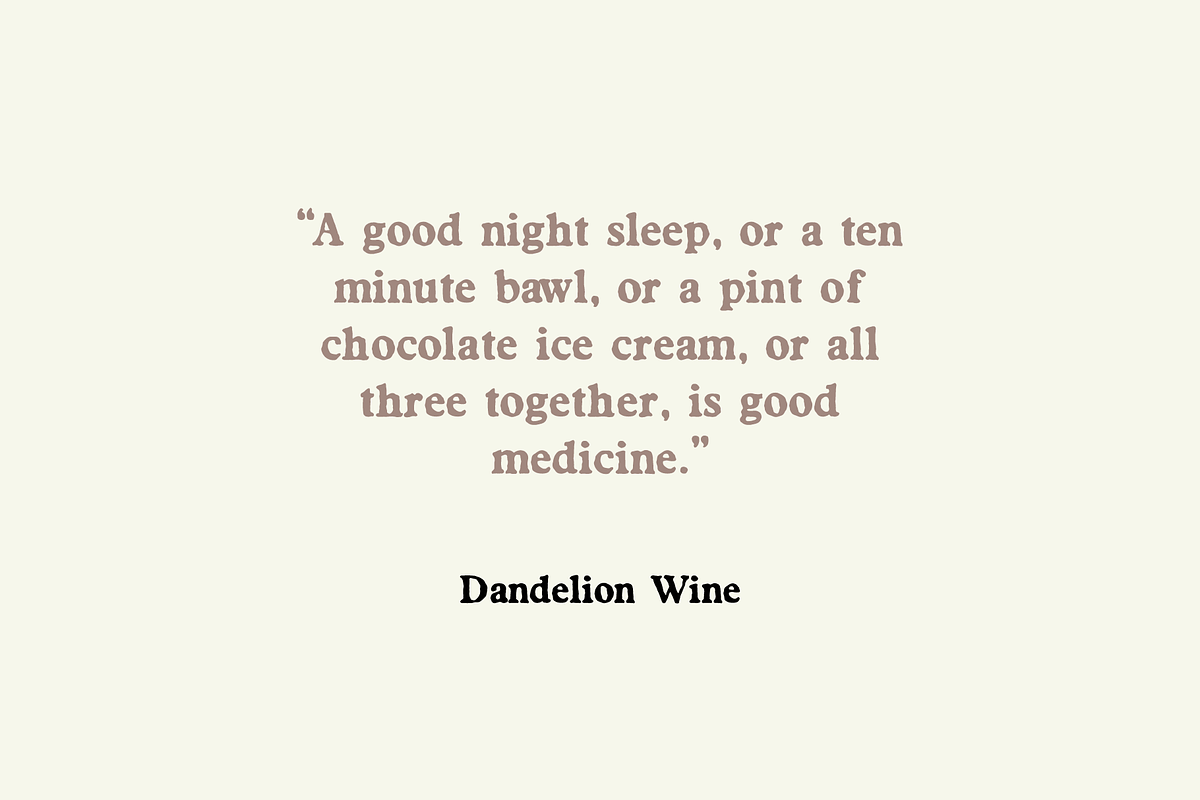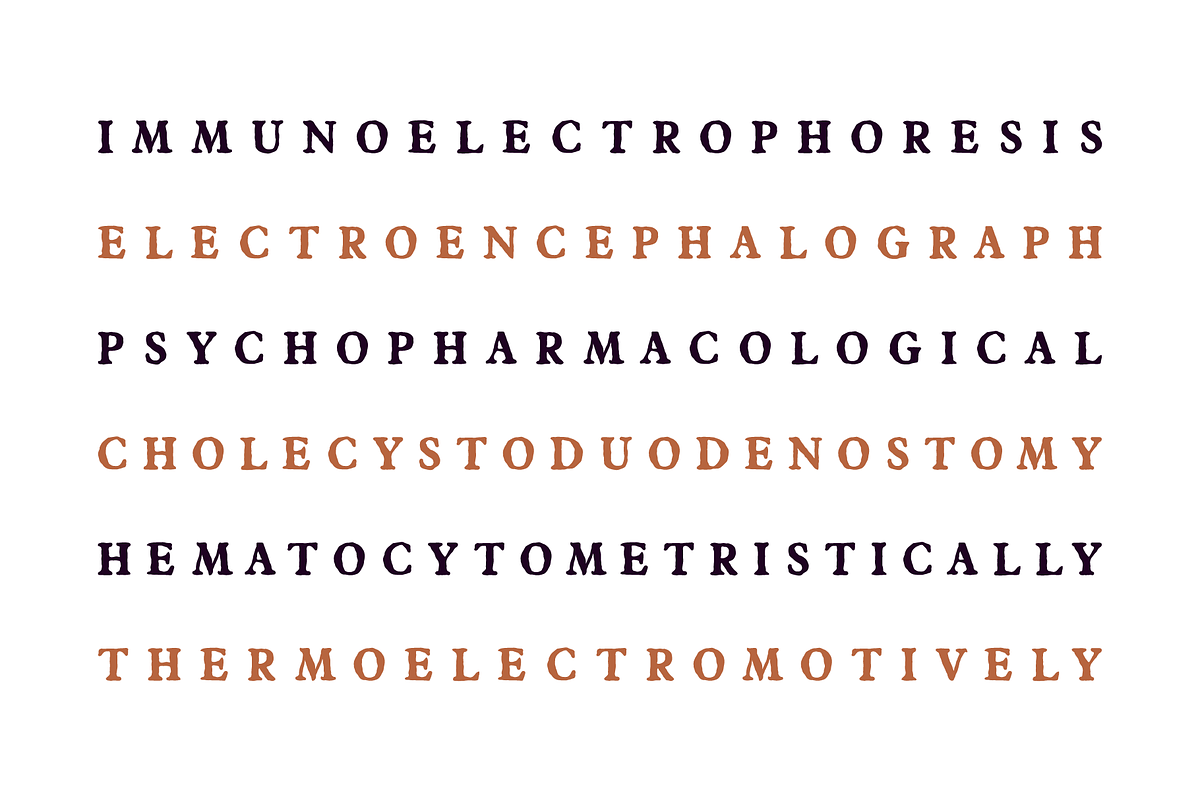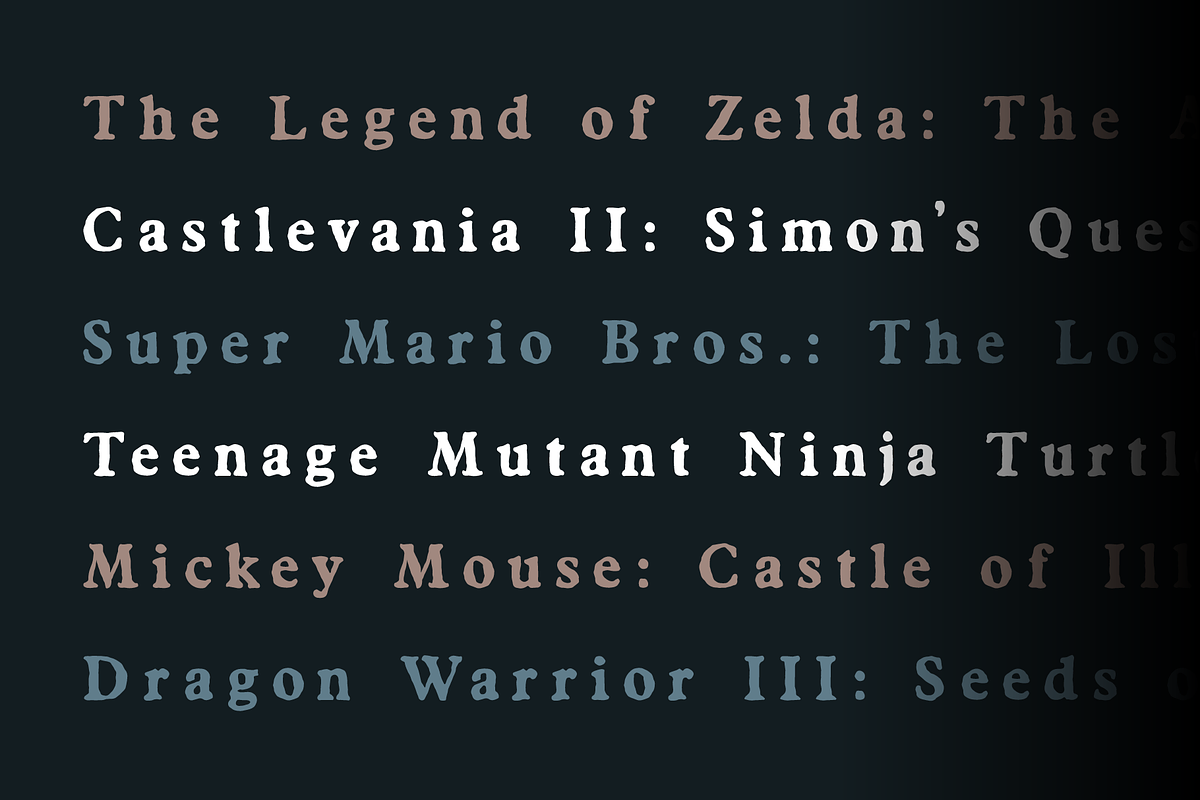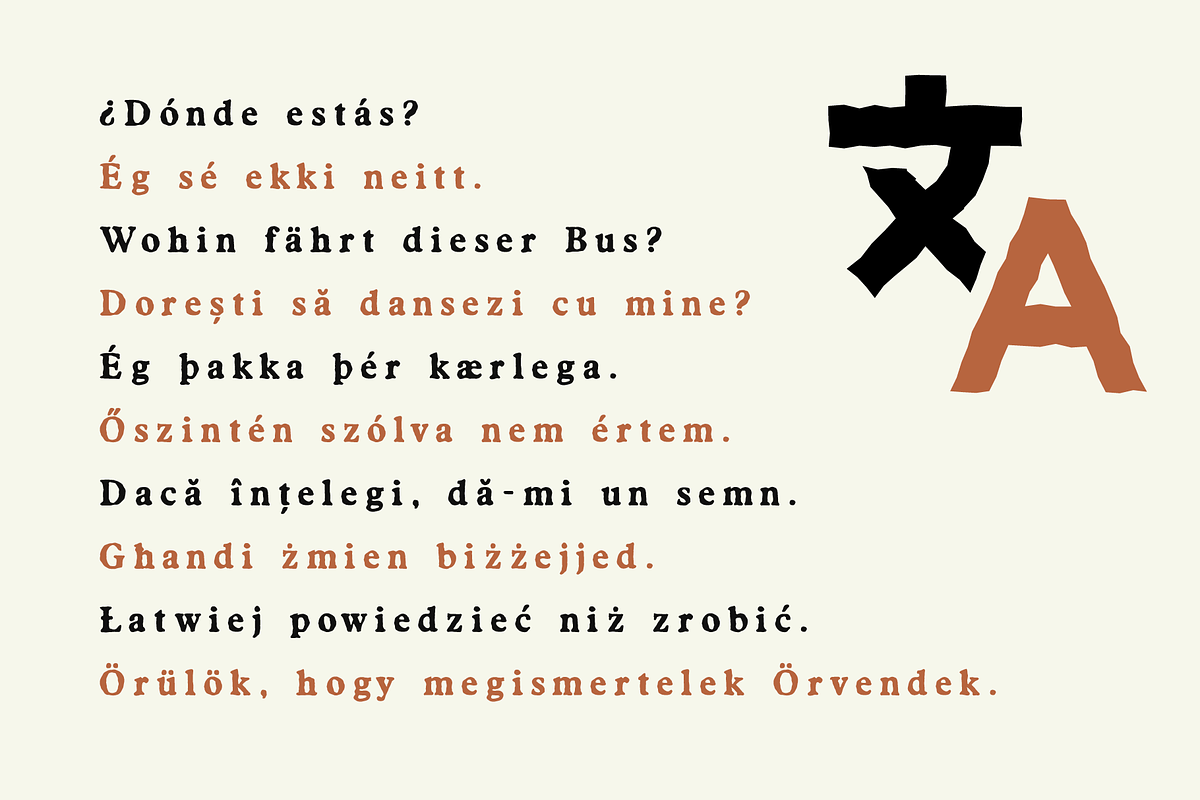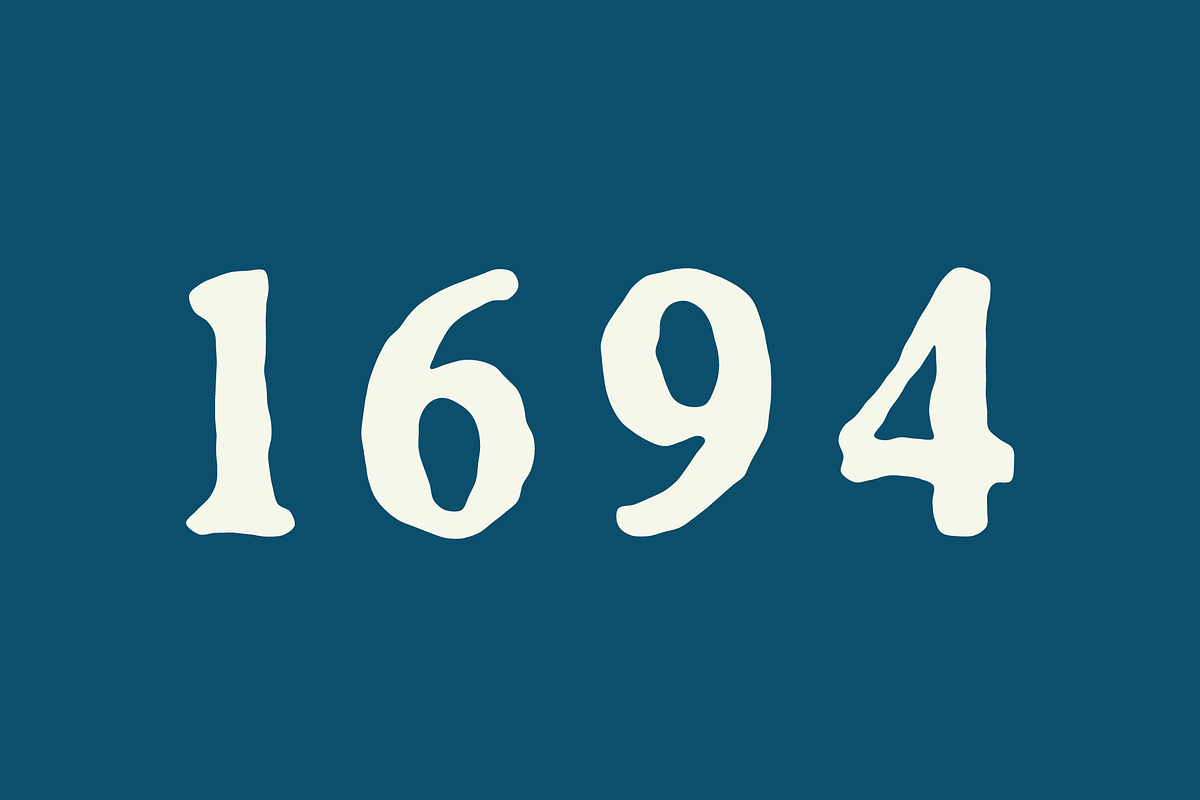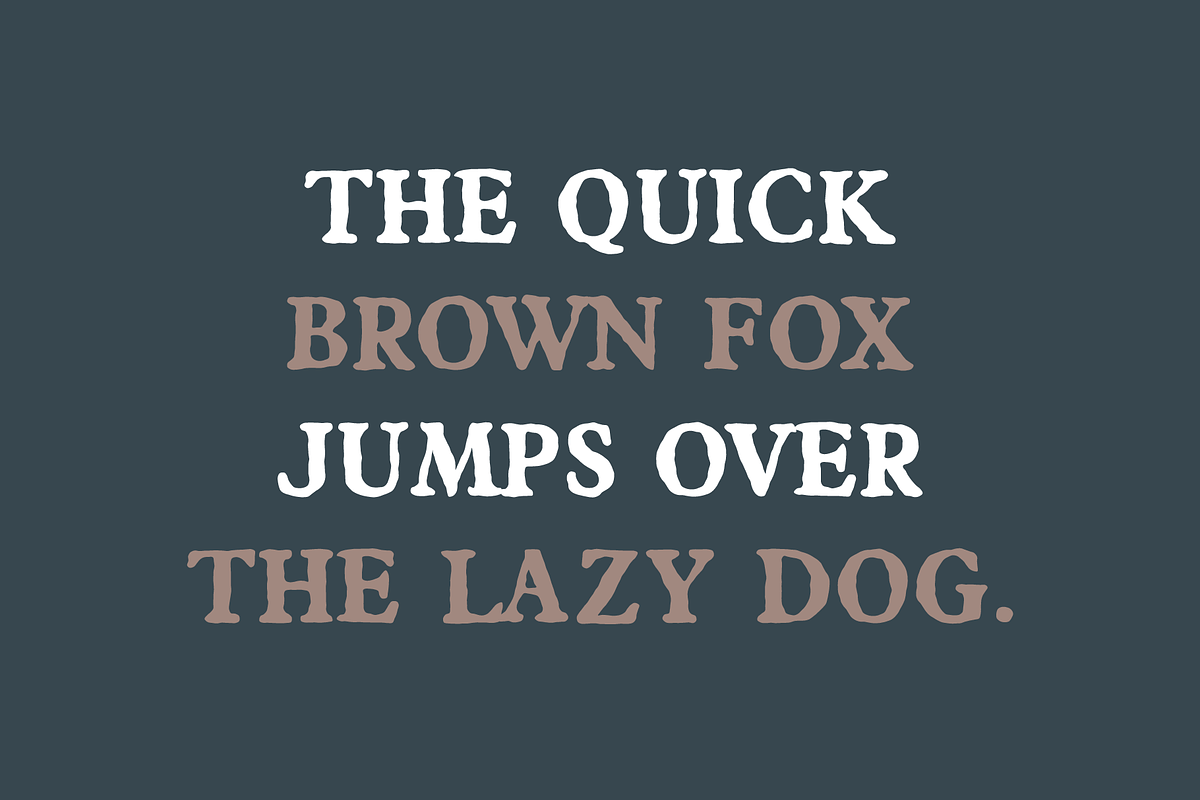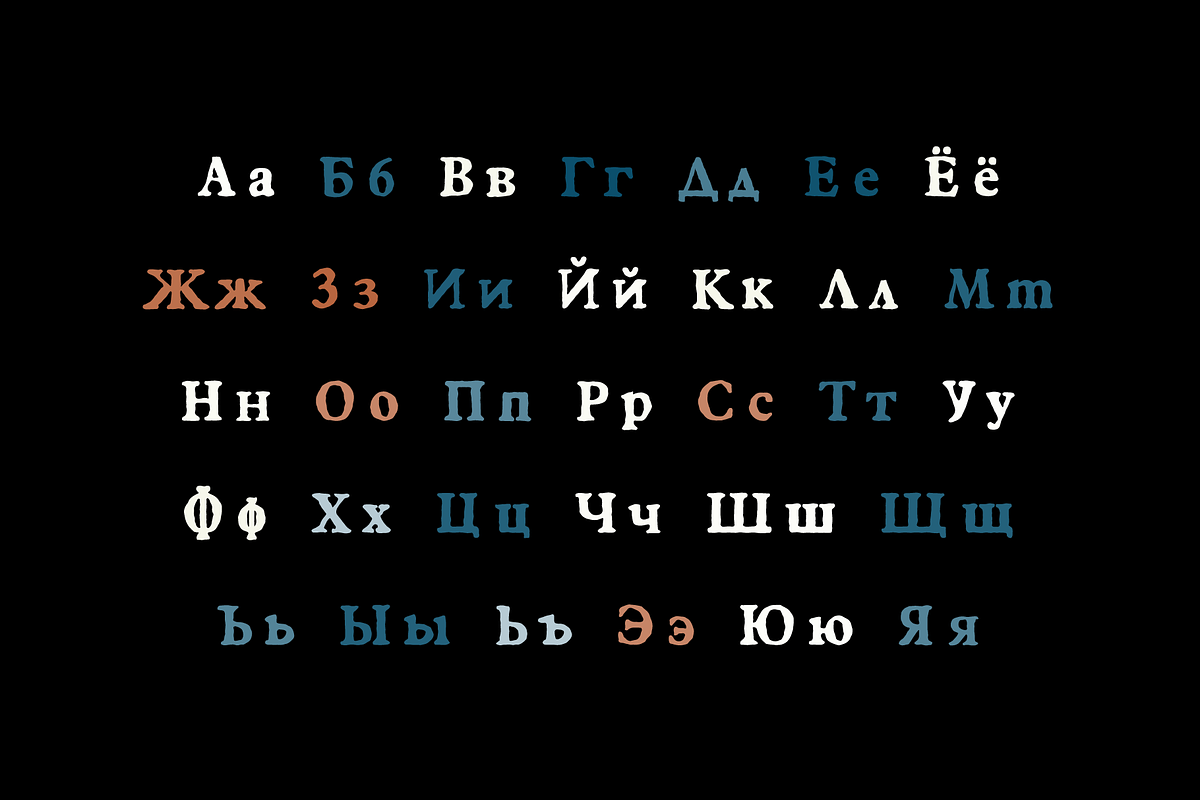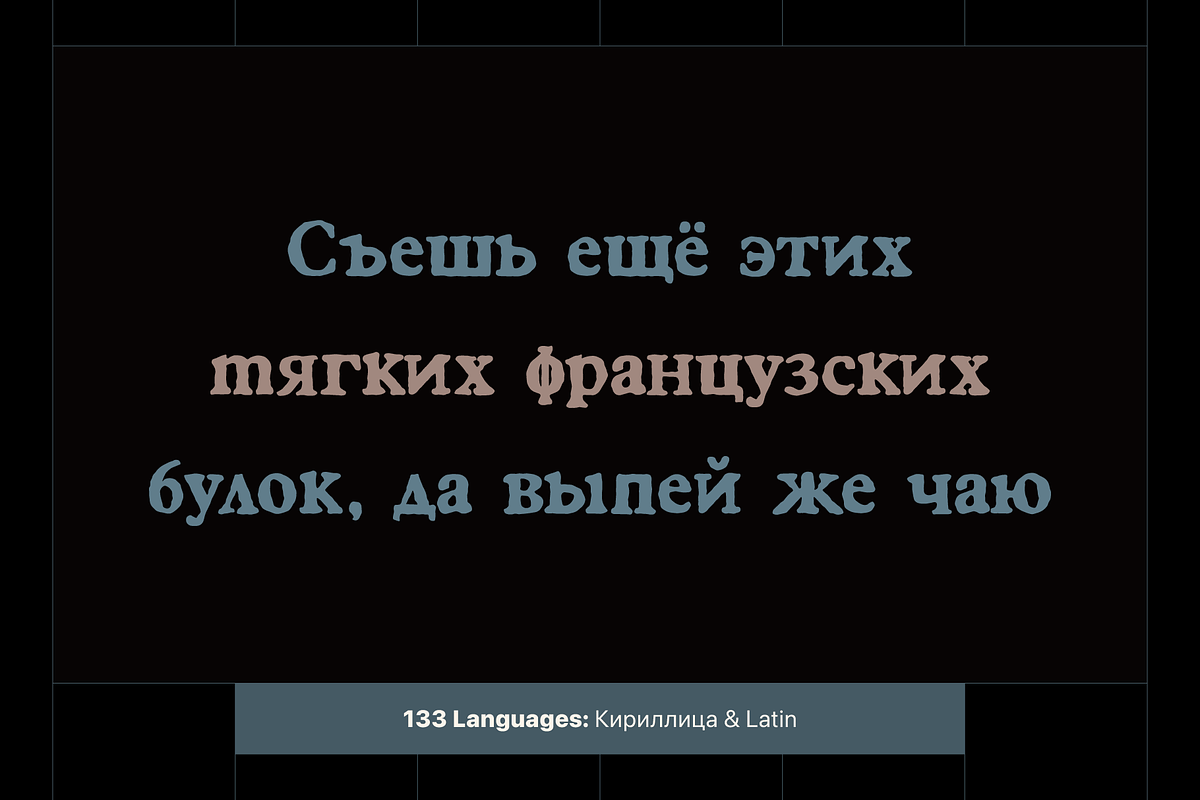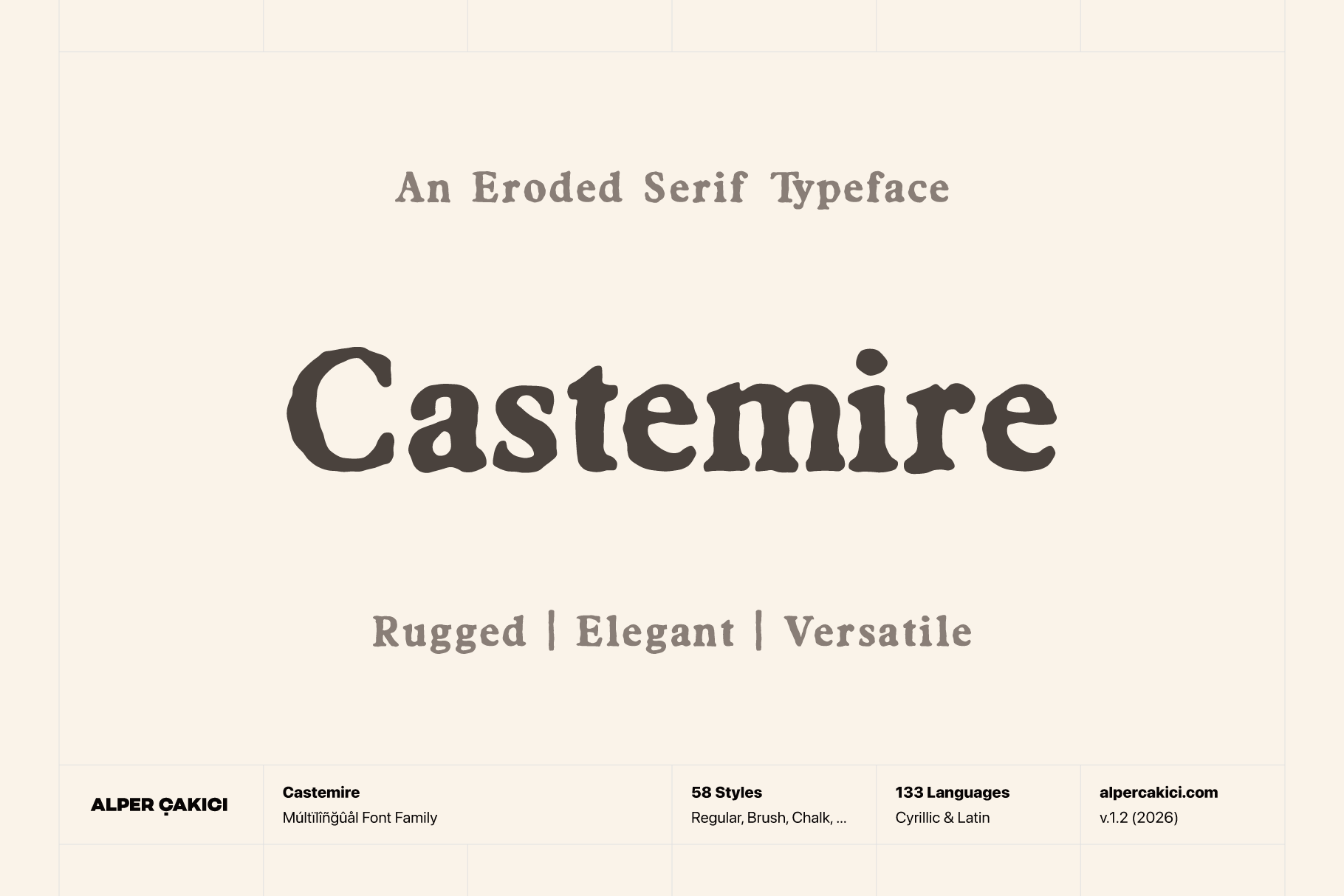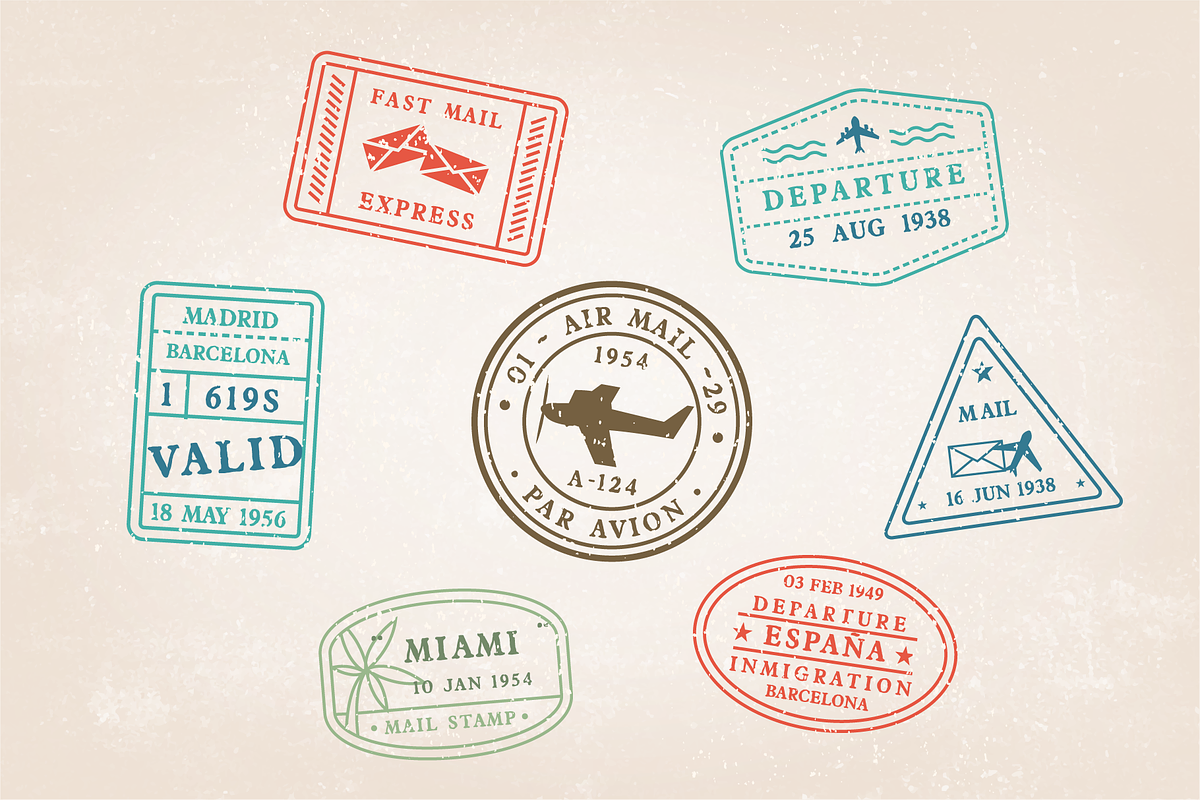
Castemire - Serif Typeface
Castemire is a distinctive eroded serif typeface that blends classical structure with raw, tactile texture. Built on elegant serif foundations and shaped by time-worn surfaces, Castemire delivers a refined yet expressive voice—perfect for designers seeking sophistication with character. Featuring 58 carefully crafted styles, Castemire offers a versatile range of textures and moods: Angular • Brush • Chalk • Eroded • Graphite • Liner • Pencil • Rough • Wax • Regular — each with matching Italics. From subtle grain to bold distress, every style maintains strong readability while adding organic depth and personality. Why Choose Castemire? Eroded Serif Aesthetic Classic serif proportions enhanced with handcrafted, weathered texture. 58 Versatile Styles From the clean elegance of Regular to the expressive impact of Rough and Wax. Extensive Language Support Supports 133 languages, including Cyrillic. Ideal for Display & Branding Perfect for editorial design, packaging, posters, album covers, logos, and artisan branding. Castemire moves effortlessly between elegance and rugged character. Use Angular for sharp sophistication, Brush for expressive warmth, Chalk or Pencil for handcrafted charm, or Wax and Rough for bold, tactile impact. Whether you're creating a heritage brand identity, a textured editorial layout, or premium packaging, Castemire brings depth, atmosphere, and character to your typography.